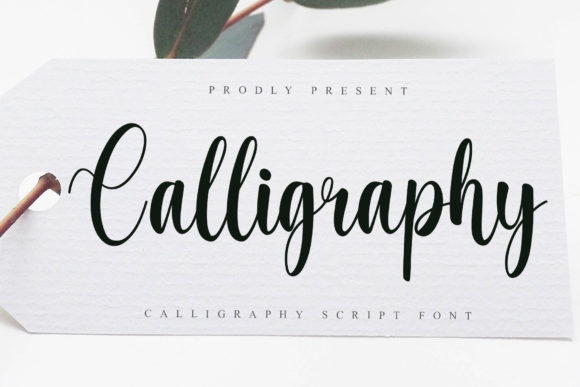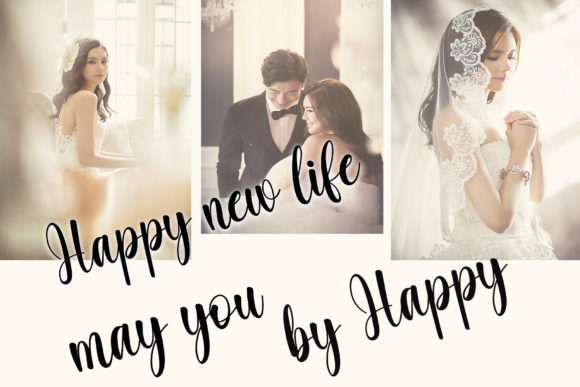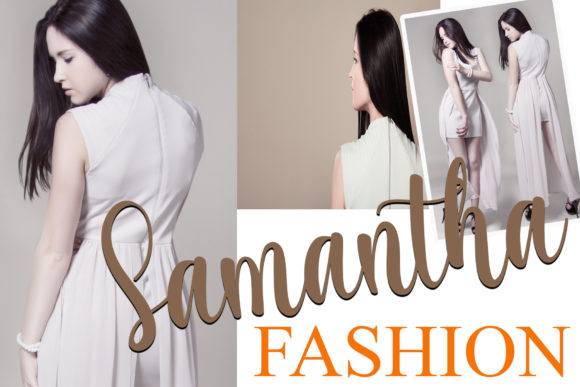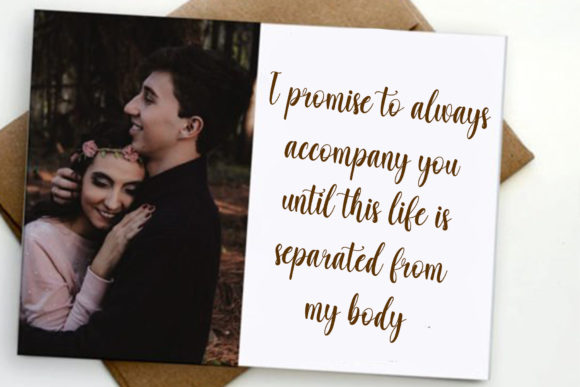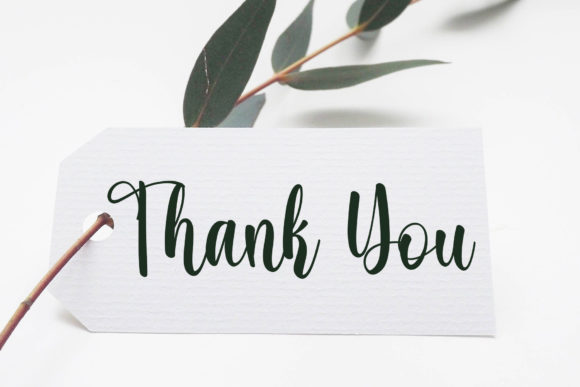
Calligraphy Font
About Calligraphy Font
Calligraphy, a delicate, elegant, and flowing handwritten font, emerges as a captivating addition to your creative repertoire. With its beautiful and well-balanced characters, this font proves to be a versatile choice, seamlessly complementing a wide range of designs. Incorporate Calligraphy into your most creative ideas, and observe how it brings them to life with grace and style.
The delicacy of Calligraphy’s design sets a refined and enchanting tone. Each character is thoughtfully crafted, contributing to the overall beauty of the font and making it suitable for a diverse array of applications.
Imagine Calligraphy enhancing elegant invitations, where its flowing handwritten style adds a touch of romance and sophistication. The font becomes a key element in creating a captivating atmosphere, setting the perfect tone for special occasions.
In branding projects, Calligraphy stands out as a distinctive and elegant choice. Its delicate and well-balanced characters contribute to a harmonious visual identity, making your brand not only memorable but also conveying a sense of timeless beauty.
Social media graphics benefit from Calligraphy’s flowing elegance. Whether you’re sharing quotes, promotions, or engaging content, this font adds a level of sophistication that captures attention and resonates with a refined aesthetic.
The versatility of Calligraphy extends to various design contexts, allowing it to adapt seamlessly to your creative vision. From wedding stationery to logos and beyond, this font becomes a versatile tool for expressing your unique style with an air of grace.
As you incorporate Calligraphy into your creative projects, let its delicate and flowing handwritten charm inspire your imagination. Notice how it transforms your ideas into visually captivating expressions, making every project a celebration of beauty and thoughtful design.